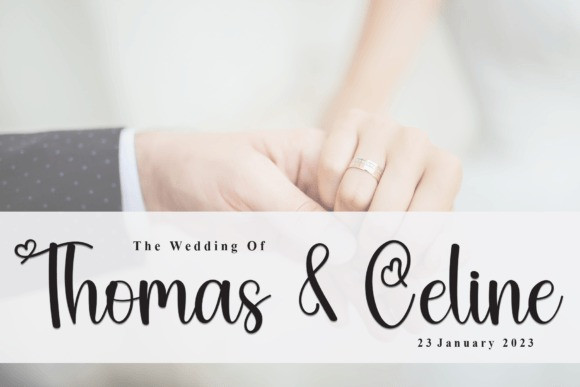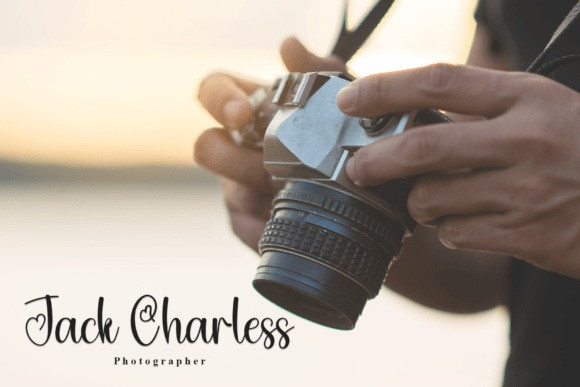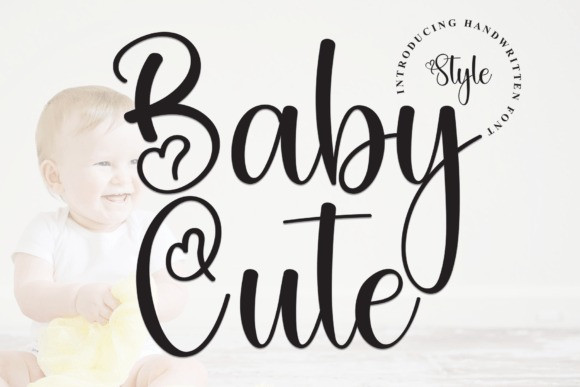
Baby Cute Script Font
Baby Cute Script Font is a fun and versatile handwritten font. Whether you’re using it for crafting, digital designing, presentations, or greeting card making, it’s perfect!